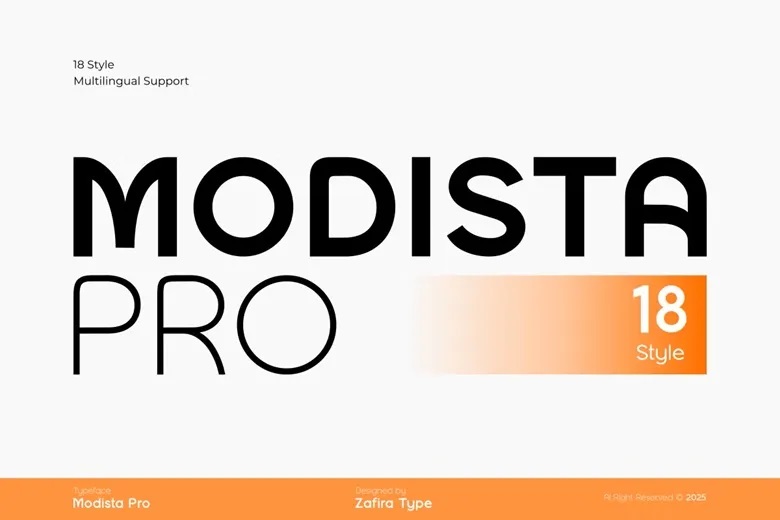
Modista Pro Font
Modista Pro is a new and modern sans serif font family with thin to heavy weight and italic. Using simple geometric shapes and symmetrical characteristics, thus Modista Pro is suitable for any design related fields such as branding, editorial, web design typography and more. Due to its clarity and strength, it is suitable for designing good and professional typographic separation.
Modista Pro Sans Serif Font